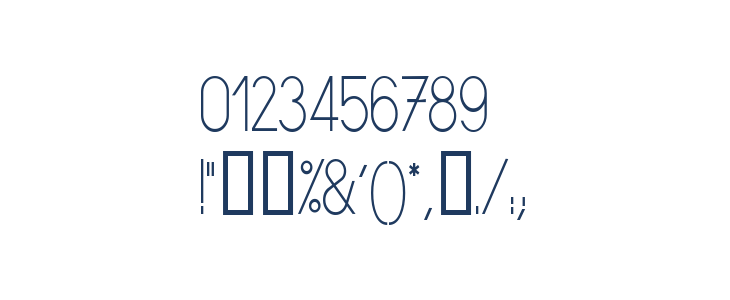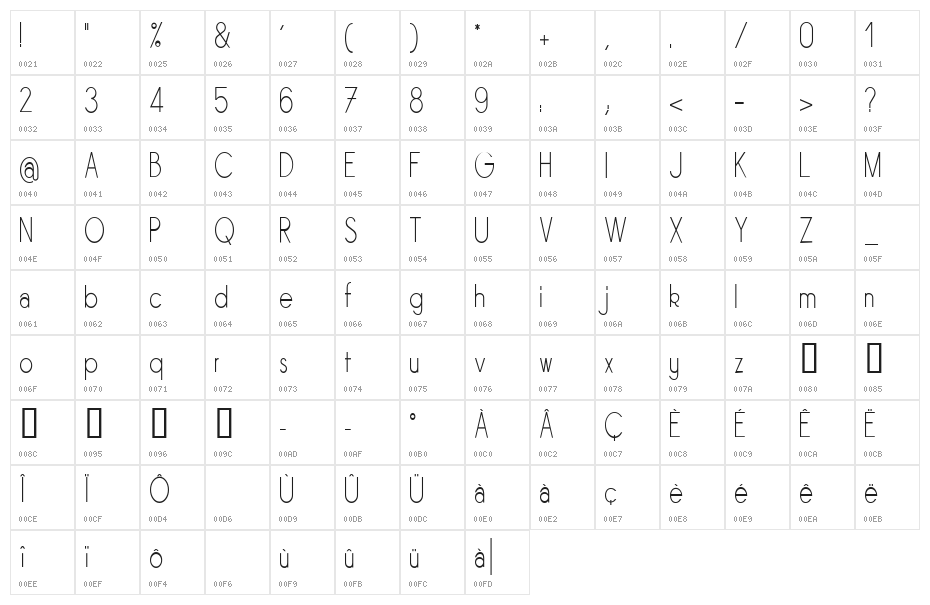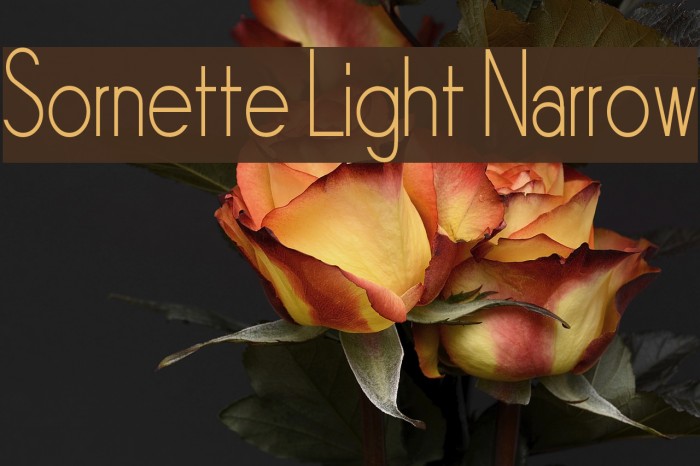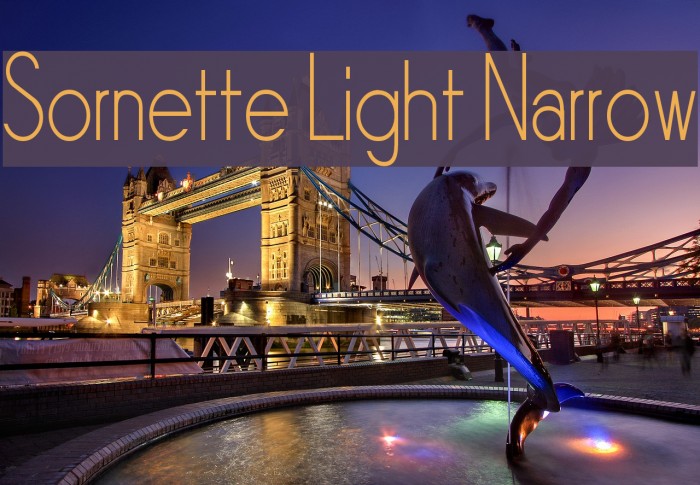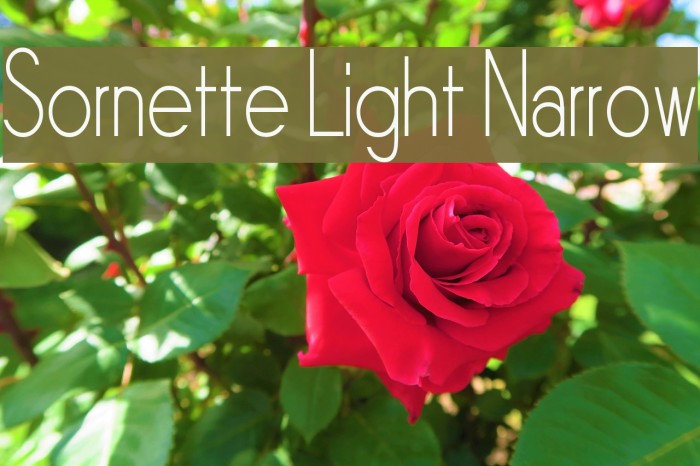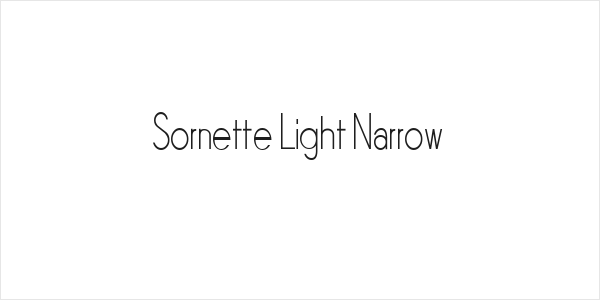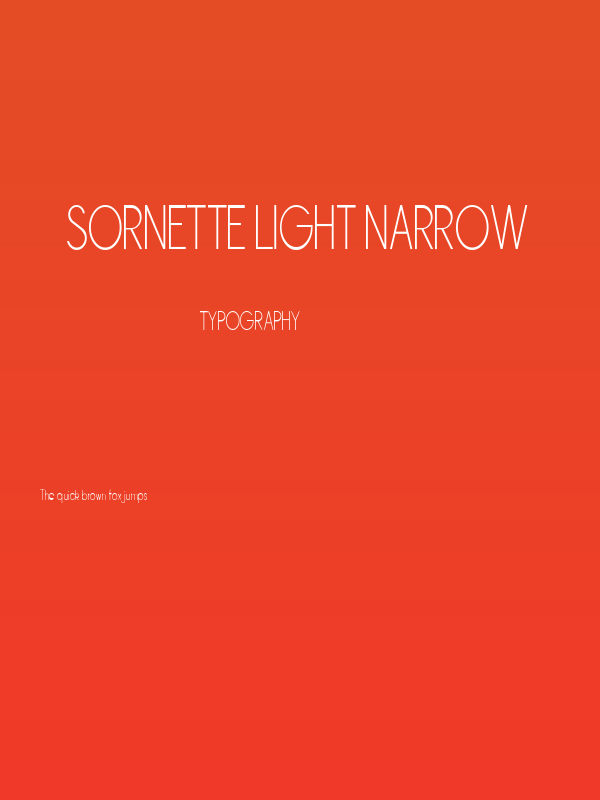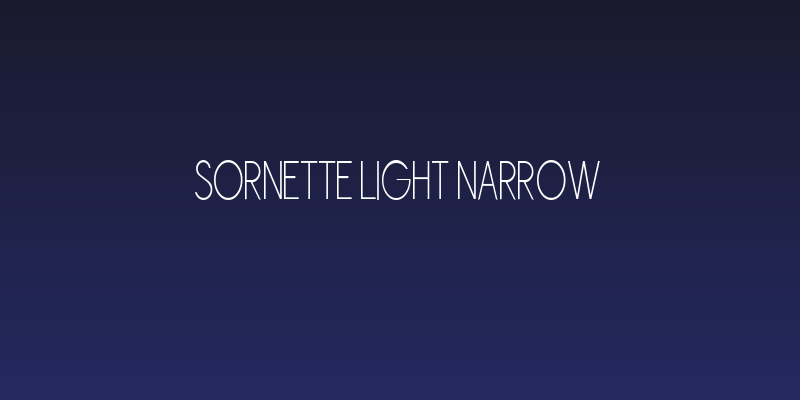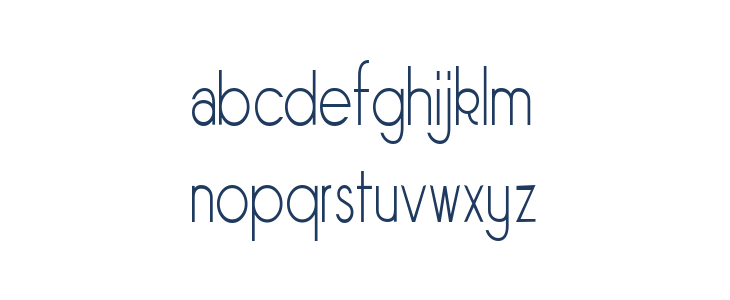
Sornette Light Narrow Font
Sornette Light Narrow Description
This font features a sleek, modern design with a light weight and narrow width. The characters are clean and minimalistic, with a geometric influence that gives them a contemporary feel. The uppercase and lowercase letters maintain a consistent style, with smooth curves and straight lines. The numerals are equally refined, offering a uniform appearance that complements the alphabet. Special characters are included, maintaining the same elegant and streamlined aesthetic. This font is ideal for projects that require a sophisticated and understated look.
Proposed ProjectsIdeal for branding, editorial design, websites, and minimalist graphic design projects.